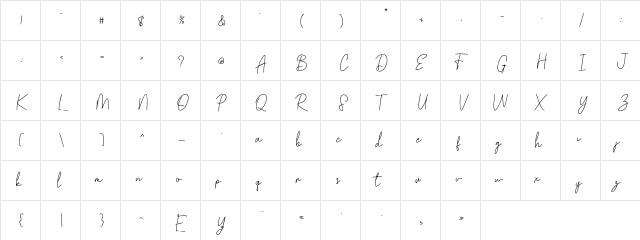
Golden Bridge Script Regular
| Foundry | Fajriadi |
| Designer | Fajriadi |
Design Context for Golden Bridge Script Typeface
Golden Bridge Script brings a calligraphic fluidity to the page — its connecting strokes and expressive curves give it an unmistakably human quality.
Font Pairing: Combine Golden Bridge Script with a simple geometric sans for maximum contrast — the tension between flowing curves and clean structure is a classic typographic pairing.
Pro Tip: Pair Golden Bridge Script with a clean sans-serif for supporting text. The contrast between fluid script and geometric structure creates an elegant typographic hierarchy.